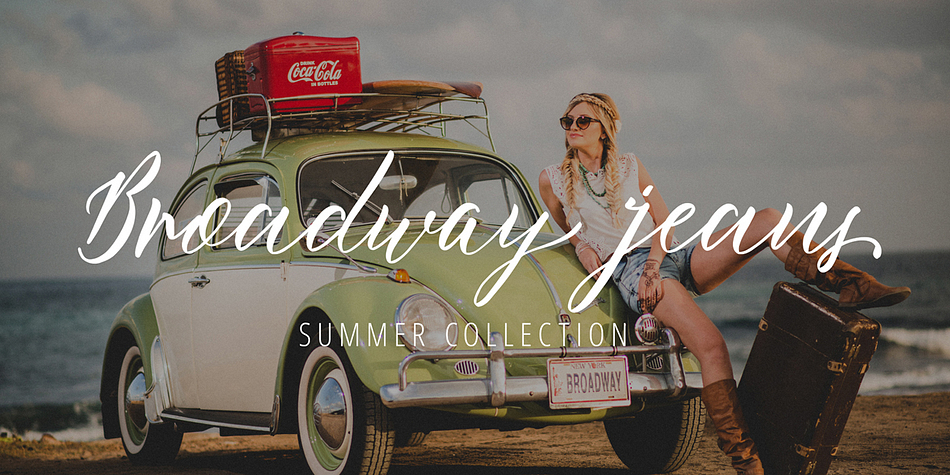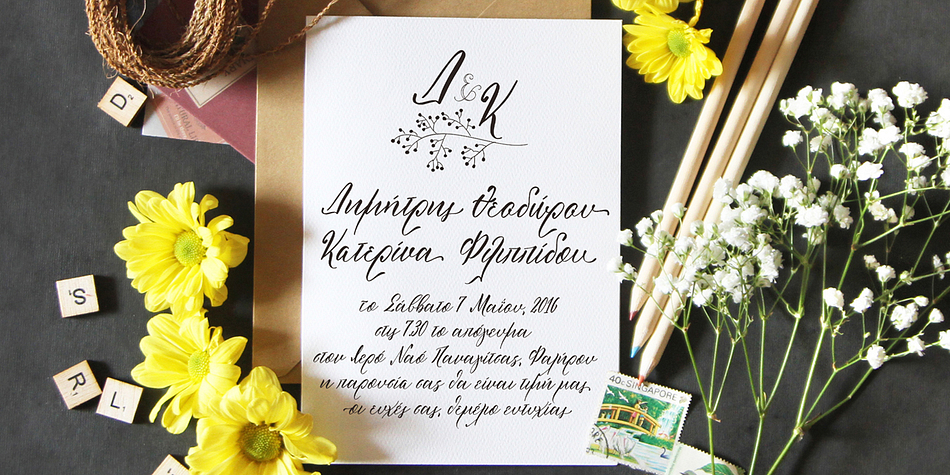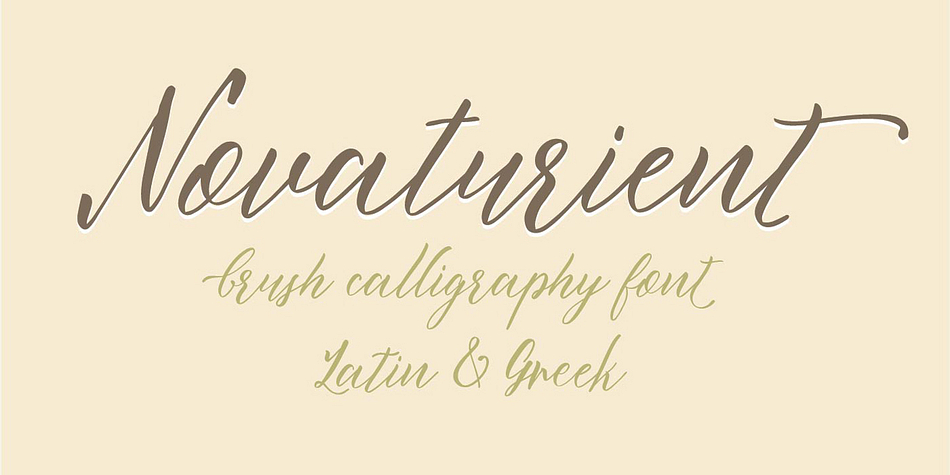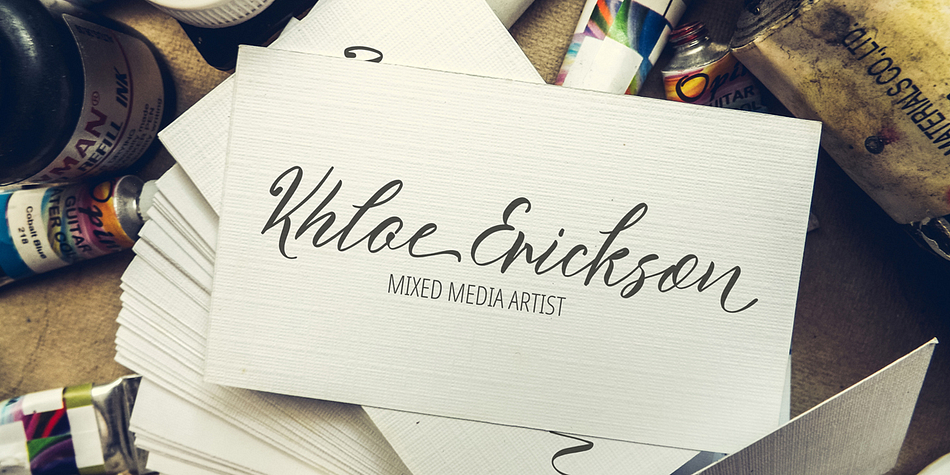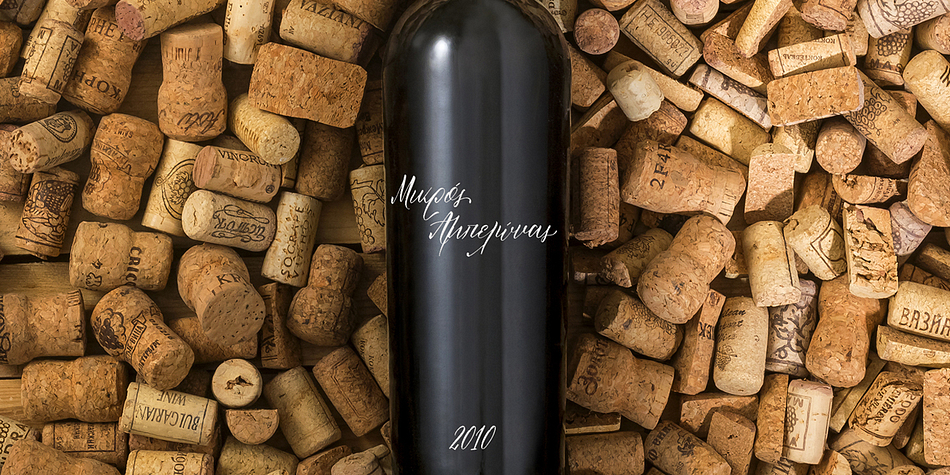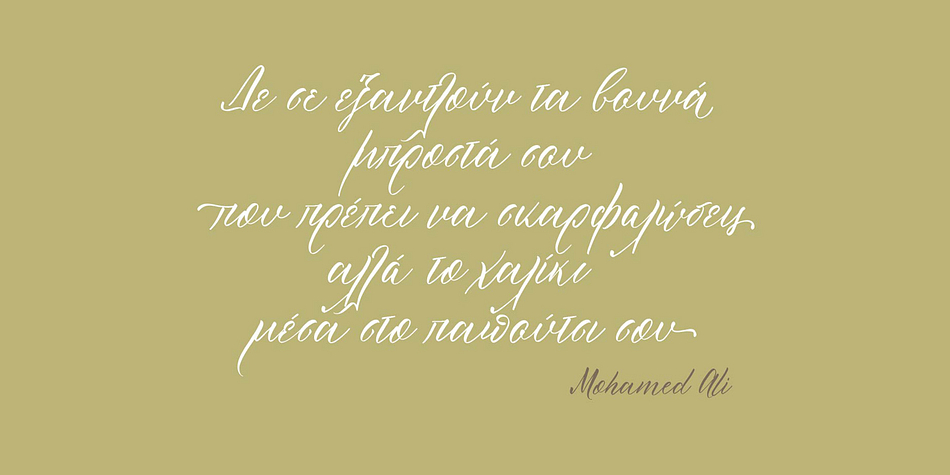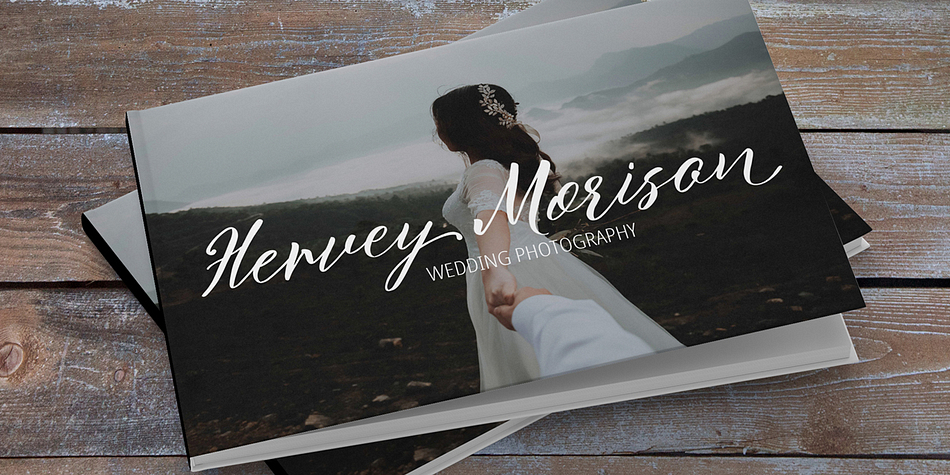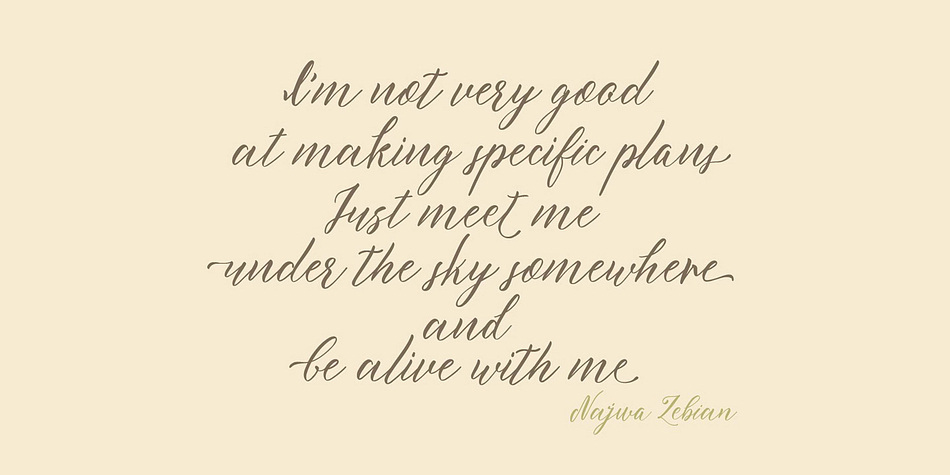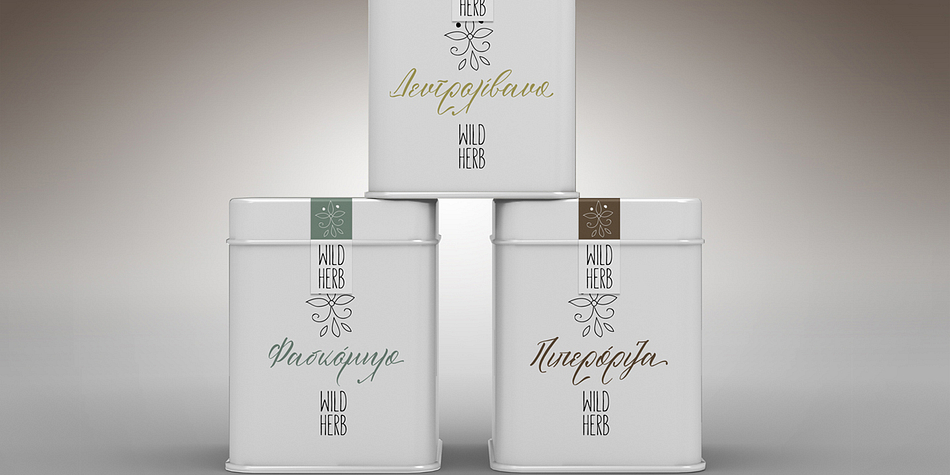
Designed by Anastasia Dimitriadi, Novaturient is a brush script and modern calligraphy font published by DimitriAna.
Novaturient is a modern, brush calligraphy font, designed to give an elegant hand-drawn style at your work. It is suitable for a variety of applications such as stationery design, invitations, logos, labels, packaging design, merchandise products, etc. It supports Central, Eastern, Western European, Baltic, Turkish and Greek languages and delivered in Opentype and Truetype format.
The font contains 1173 glyphs, with a variety of opentype features in Latin and Greek alphabet: Both, uppercase and lowercase character sets have their stylistic alternates. Standard ligatures, 2 sets of terminals (te01 & te02) and a set of initial letters (in01), will also give your text a custom personal look.